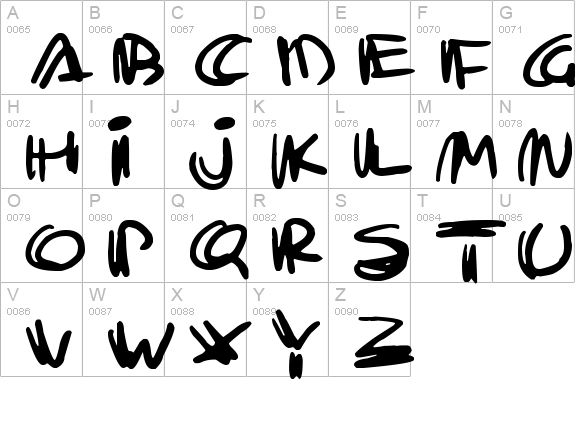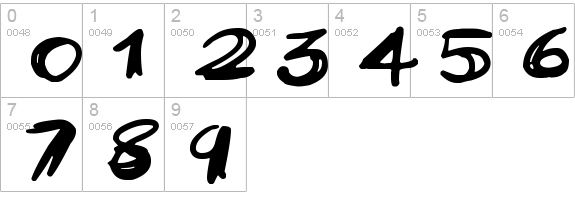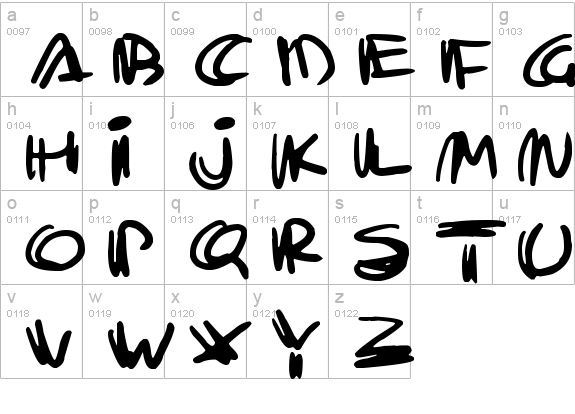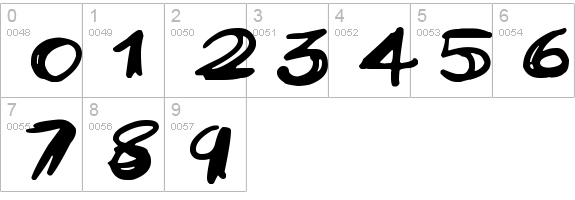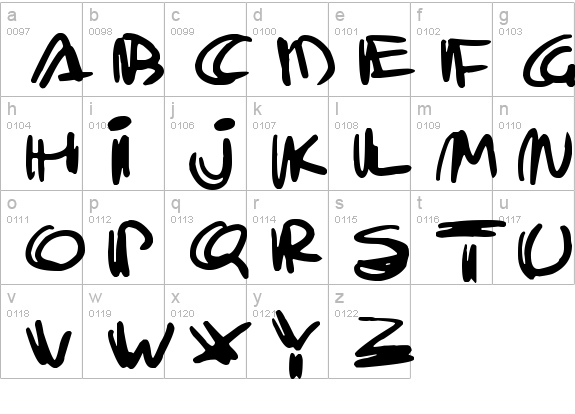
Trashtalk Font Details
Trashtalk font is a bold and edgy typeface that brings a rebellious and urban feel to any design project. With its sharp angles and rugged appearance, this font exudes a sense of confidence and attitude. Perfect for posters, album covers, and branding materials that need a touch of boldness.